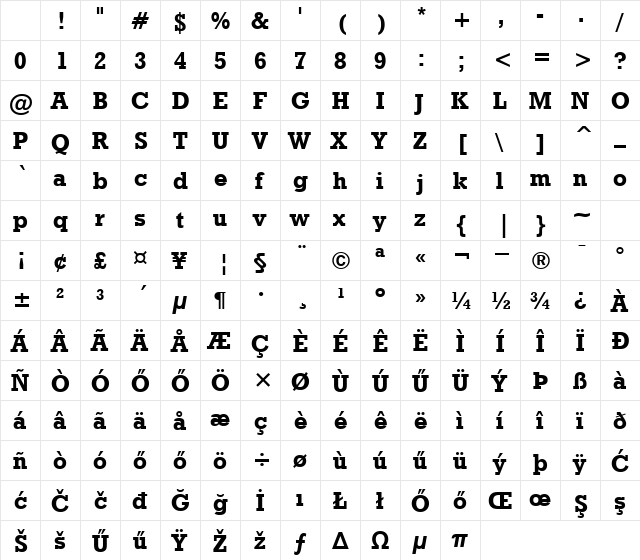
Complete H_GeoSlb 712 Md BT Bold glyph index. Displaying only characters natively supported by H_GeoSlb 712 Md BT Bold font.
H_GeoSlb 712 Md BT is a composed and adaptable typeface that performs quietly and consistently across a wide range of design contexts. Its bold stroke weight gives it real presence on the page.
Pro Tip: Use H_GeoSlb 712 Md BT in both headline and body roles to test its range before committing to a single application.